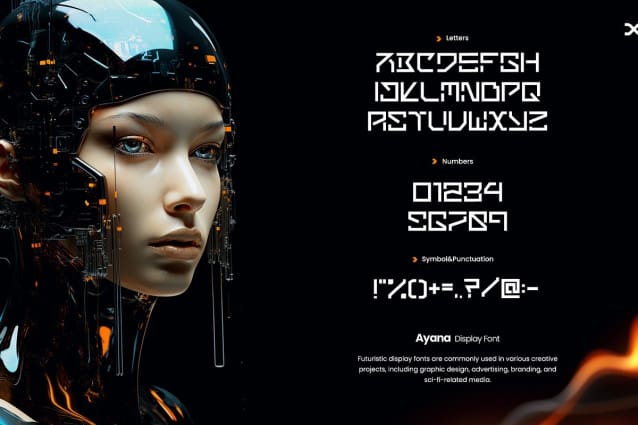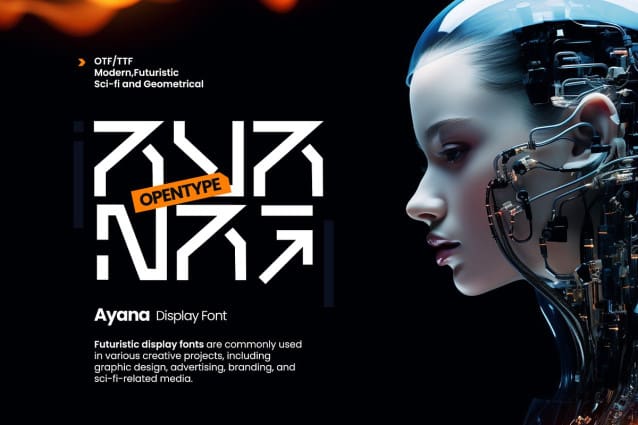
Ayana Display Font
Ayana Display Font are commonly used in various creative projects, including graphic design, advertising, branding, and sci-fi-related media.